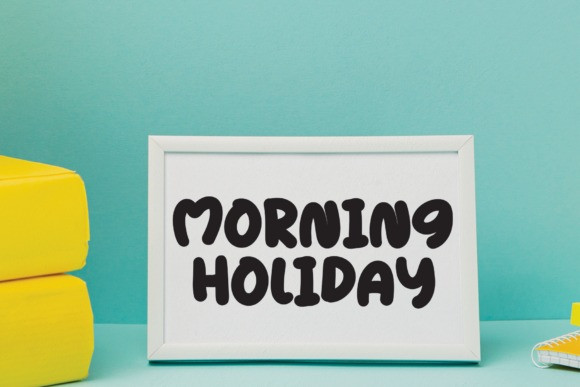
Summer Holiday Typeface
Summer holiday Display Font is a chunky lettered display font that gives off cool and joyful vibes. Add it to your most creative ideas, and notice how it makes them come alive!